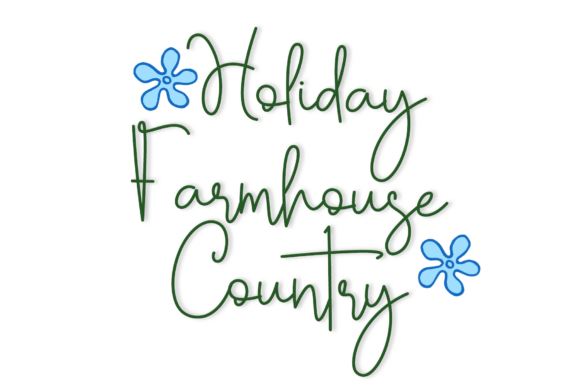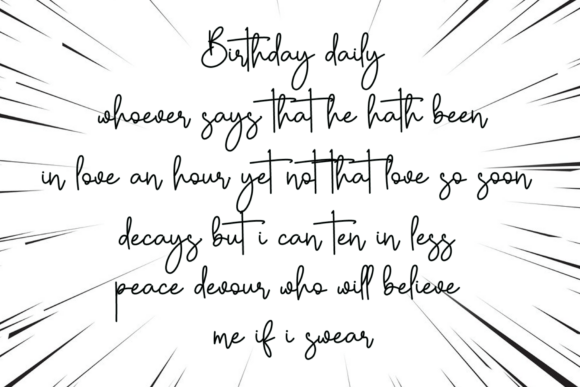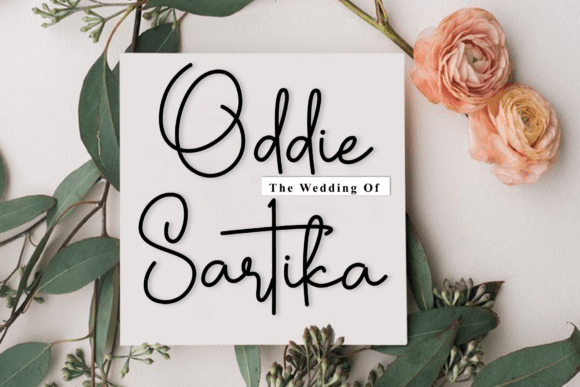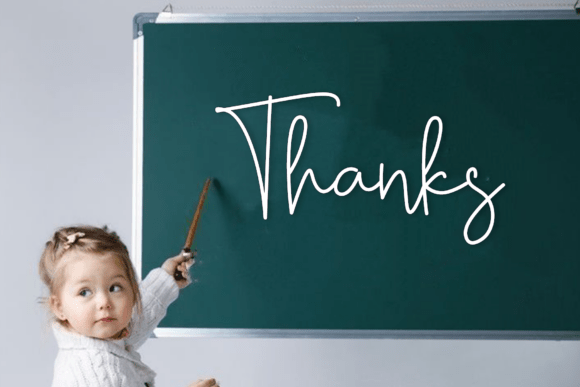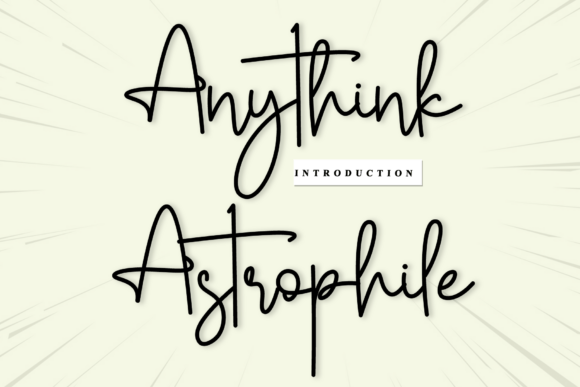
Discover the Magic of Anythink Astrophile Font: Elevate Your Designs with a Timeless Handwritten Style
Are you a designer or crafter looking for a font that can add a touch of elegance and sophistication to your work? Look no further than the Anythink Astrophile Font. This lovely and timeless handwritten font is perfect for creating eye-catching logos, branding, and quotes that will leave a lasting impression on your audience.
The Unique Charm of Anythink Astrophile
What sets Anythink Astrophile apart from other fonts is its unique and beautiful touch. Every letter has been carefully crafted to have its own distinct character, making it a true standout in the world of typography. Whether you’re looking to create a bold and statement-making design or a more subtle and understated one, Anythink Astrophile has the versatility to do it all.
Anythink Astrophile is the perfect choice for designers and crafters who want to create stunning logos, branding, and quotes. Its elegant and cursive style makes it ideal for creating eye-catching headlines, titles, and taglines that will grab the attention of your audience. Whether you’re working on a new brand identity or want to create a memorable quote, Anythink Astrophile has got you covered.
Why Choose Anythink Astrophile?
So why choose Anythink Astrophile over other fonts? Here are just a few reasons why this font stands out:
- Unique and Beautiful Touch: Every letter has a unique and beautiful touch that will make your design come alive.
- Timeless Style: Anythink Astrophile has a timeless style that will never go out of fashion.
- Versatile: This font is perfect for a wide range of design projects, from logos and branding to quotes and more.
- Elegant and Cursive: Anythink Astrophile has an elegant and cursive style that is perfect for creating eye-catching headlines and titles.
How to Use Anythink Astrophile in Your Designs
Using Anythink Astrophile in your designs is easy. Here are a few tips to get you started:
- Pair it with Other Fonts: Anythink Astrophile looks great when paired with other fonts. Try pairing it with a bold sans-serif font for a striking contrast.
- Experiment with Colors: Anythink Astrophile looks great in a variety of colors. Experiment with different colors to find the one that works best for your design.
- Use it for Headlines and Titles: Anythink Astrophile is perfect for creating eye-catching headlines and titles. Use it to grab the attention of your audience.
Key Features of Anythink Astrophile Font
- Handwritten Font: Anythink Astrophile is a lovely handwritten font.
- Unique and Beautiful Touch: Every letter has a unique and beautiful touch.
- Timeless Style: Anythink Astrophile has a timeless style that will never go out of fashion.
- Perfect for Logos, Branding, and Quotes: Anythink Astrophile is perfect for creating eye-catching logos, branding, and quotes.